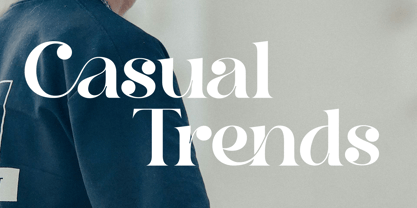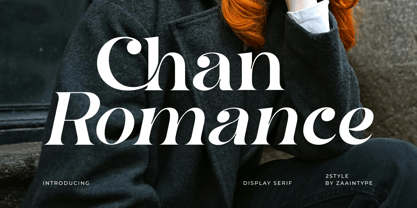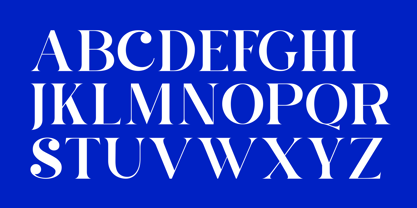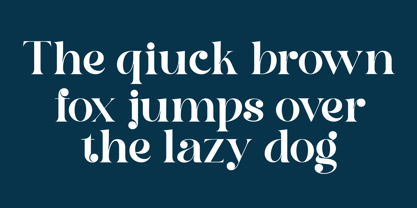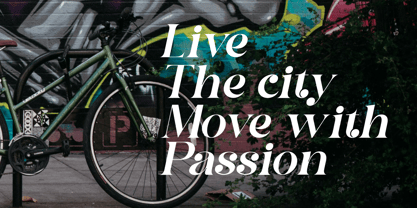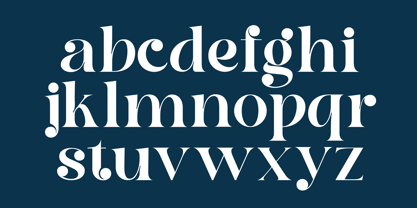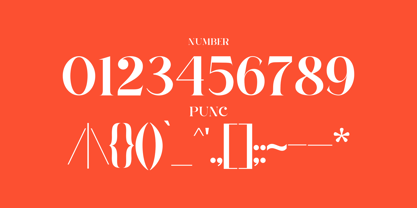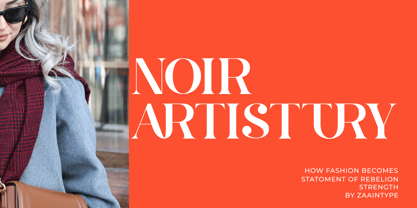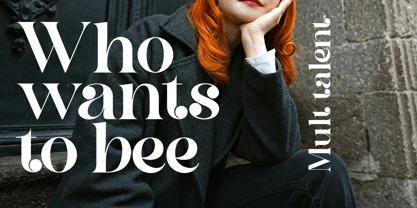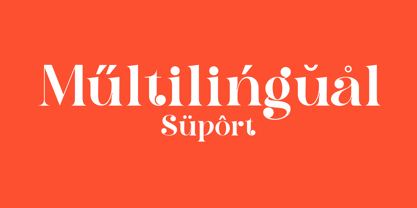
Chan Romance
The Chan Romance Font Family was designed by Ju Naen and published by Zaain Type. Chan Romance contains 2 styles and family package options. More about this family
Chan Romance is a luxurious high-contrast serif crafted for those who seek sophistication and style. With its graceful curves and bold yet delicate strokes, this font embodies timeless beauty, making it the perfect choice for high-end branding, fashion editorials, wedding invitations, and elegant packaging.
The Regular version offers a poised and refined look, while the Oblique style adds a dynamic, effortless charm